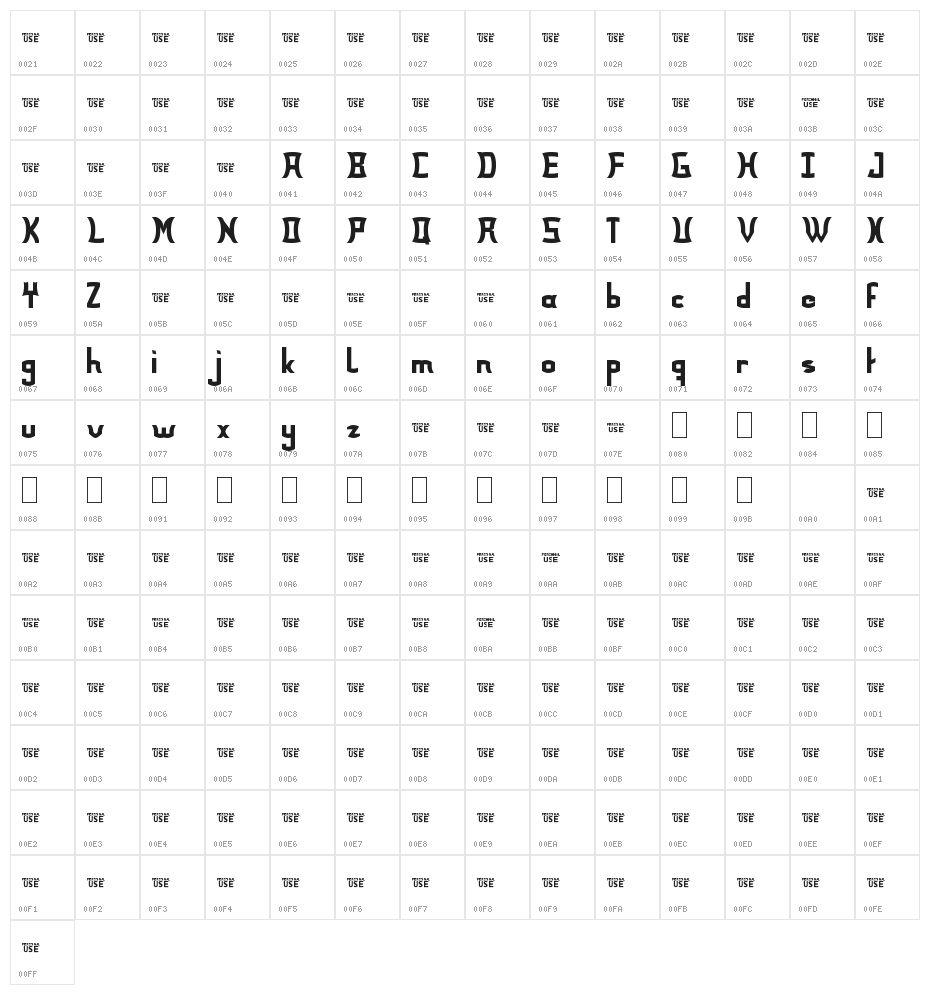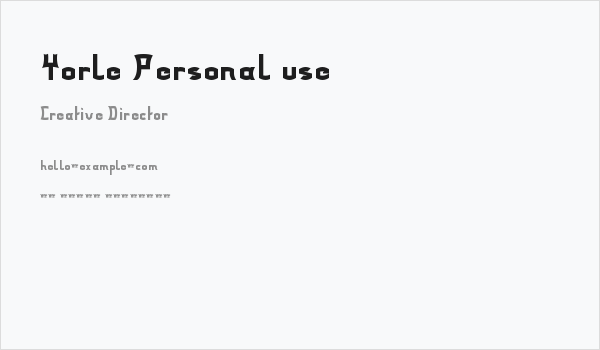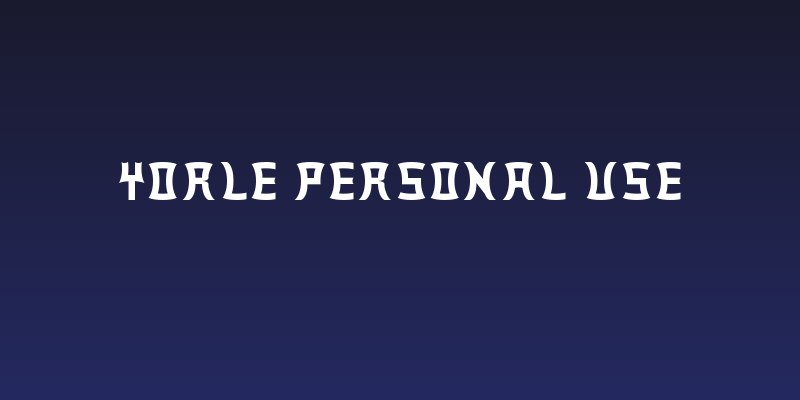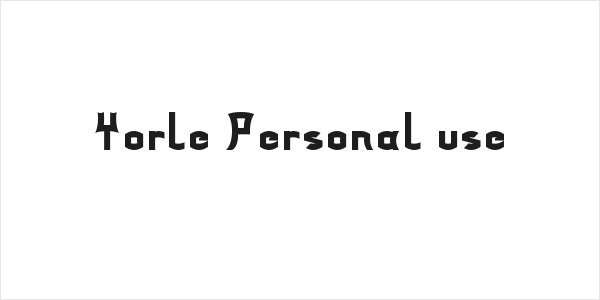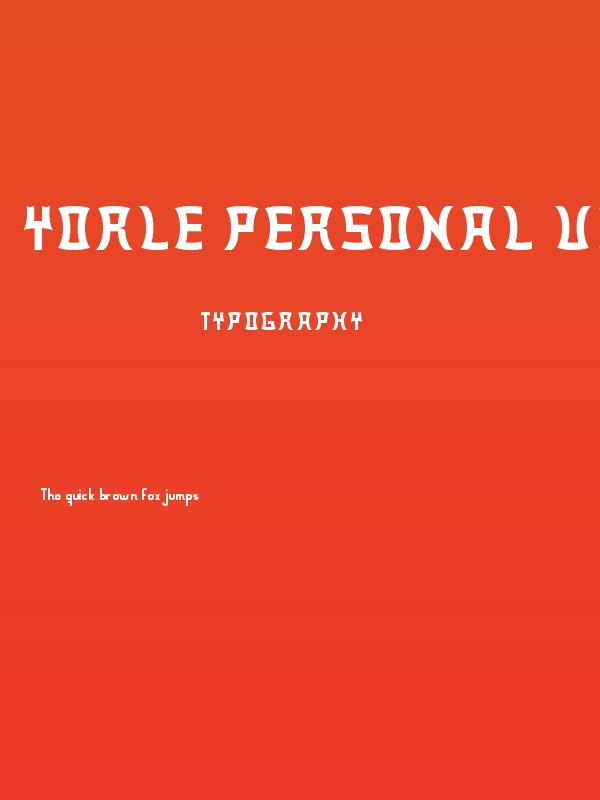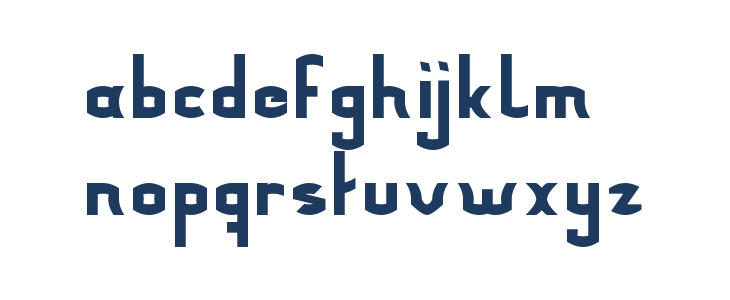
Yorle Personal use Font
Yorle Personal use Description
This font features a bold and striking design with a modern twist. The uppercase letters have a unique angular style, giving them a dynamic and edgy appearance. The lowercase letters maintain a consistent weight, complementing the uppercase with a slightly more rounded form. The overall design is geometric, with sharp edges and a strong presence. This font is perfect for making a statement, with its bold strokes and distinctive character shapes. The spacing between characters is tight, enhancing its compact and impactful look.
| Proposed Projects | Ideal for branding, posters, headlines, and any project needing a bold, modern aesthetic. |